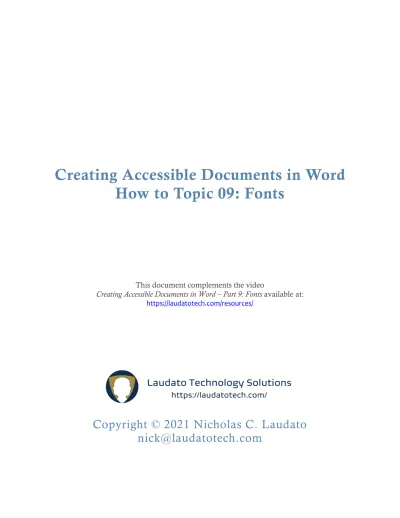
Creating Accessible Documents in Word How to Topic 09: Fonts
Using Fonts
Wiktionary defines a font as:
A set of glyphs of unified design, belonging to one typeface (e.g., Helvetica), style (e.g., italic), and weight (e.g., bold). Usually representing the letters of an alphabet and its supplementary characters. 1
Issues associated with font selection are not of concern for the totally blind, who rely on screen readers, but are a concern for those with low or limited vision.
F
ONTT
YPEFACETypeface refers to the design of the lettering, or the font family, such as:
Calisto MT (the main font used in this document) Arial
Times New Roman Century Gothic
Microsoft Office is delivered with about 70 different fonts. Other installed applications, such as Adobe Creative Suite, add to that number.
Some fonts can be very difficult to read for people with vision problems and should consequently be avoided. Some examples of complex, condensed, or “busy” font families include:
AlgeriAn 12 point.
Bauhaus 93 12 point.
Bodini MT Poster Compressed 12 point.
Brush Script MT 12 point.
Showcard Gothic 12 point.
Snap ITC 12 point
F
ONTW
EIGHTWeight refers to the boldness or lightness of the font. The following examples from
Microsoft Word’s Gill font family illustrate the differences in weight, all represented in the same size:
Gill Sans MT Gill Sans Condensed Gill Sans MT Ext Condensed Bold Gill Sans Nova Cond Gill Sans Nova Cond Lt
Gill Sans Nova Cond Ultra Bold
Gill Sans Cond XBd Gill Sans Nova Light
Gill Sans Nova Ultra Bold Gill Sans Ultra Bold
Gill Sans Ultra Bold Condensed
Some of these font weights, particularly at the extreme ends (condensed, thin, and bold) may present problems to individuals with low vision.
F
ONTS
IZEFont size is measured in points. Each point represents about 1/72 of an inch in height. An inch in height therefore provides enough room for about six lines of 12-point type, single spaced.
Calisto MT - 8 point
Calisto MT - 10 point
Calisto MT - 12 point
Calisto MT - 14 point
Calisto MT - 16 point
Calisto MT - 18 point
Calisto MT - 24 point
Generally, a 12-point font is the best choice for readability in a document created in Microsoft Word or in a PDF. Smaller sized fonts may present difficulties to individuals with low vision. For headings, 14- or 16-point fonts are generally appropriate. In Microsoft PowerPoint, many seasoned presenters recommend using at least 24-point fonts, providing from seven to nine lines of type per slide.
Font size is important to readability and is tied to typeface design. For example, observe the size differences between the following typefaces, all rendered in 12-point fonts:
ABCabc123 Arial
ABCabc123 Biome
ABCabc123 Calibri ABCabc123 Candara
ABCabc123 Tahoma
ABCabc123 Verdana
S
ERIFSAnother important attribute of a font is whether the typeface includes a serif or not. Serifs are the small extra embellishments that appear at the ends of some letter components. Fonts without such embellishments are referred to as sans serif fonts.
Figure 1: Sans Serif versus Serif Fonts
Early research in typography indicated that serif fonts, when printed on a high-quality offset press, were easier to read and enabled better retention of the content than sans serif fonts.
Theoretically, this is due to the extra information in the font face that makes it easier for the eye to quickly recognize letters. Serifs also help avoid the ambiguity between certain sans serif letters such as lower case “L” (l) versus upper case “i” (I) and to recognize the difference between a letter sequence such as “rn” and the letter “m”.
When low-resolution computer screens and printers came into play, the simpler sans serif fonts were typically judged to be superior because they presented a “cleaner” and simpler dot pattern. Consequently, many people recommended the use of sans serif fonts for better readability. With today’s high-resolution screens, the pendulum seems to be swinging back in the direction of serif fonts.
The following boxed paragraph illustrates the difference between the Candara sans serif font (on the left) and the Calisto MT serif font (on the right) at various font sizes.
This is a sans serif font. This is a serif font. (18 point)
This is a sans serif font. This is a serif font. (14 point)
This is a sans serif font (Candara). This is a serif font (Calisto MT). (12 point)
This is a sans serif font. This is a serif font. (10 point)
This is a sans serif font. This is a serif font. (8 point)
Opinions differ as to whether serif or sans serif fonts are a better choice for readability, retention, and accessibility. Recent research indicates it is a toss-up. This author selected (and recommends) the Calisto MT serif font for body text and often selects sans serif fonts, such as Calibri, for headings.
UMMARYWhen selecting fonts for readability and accessibility, select standard fonts, i.e., fonts not excessively ornate, bold, thin, or condensed.
Font size is important to readability and is tied to typeface design. In general, select at least a 12-point font for documents (Word and PDF’s) and at least a 24-point font for
PowerPoint.
Use your own personal preference and aesthetic sense when selecting serif versus sans serif fonts.
Remember to provide sufficient contrast between the font and its background.